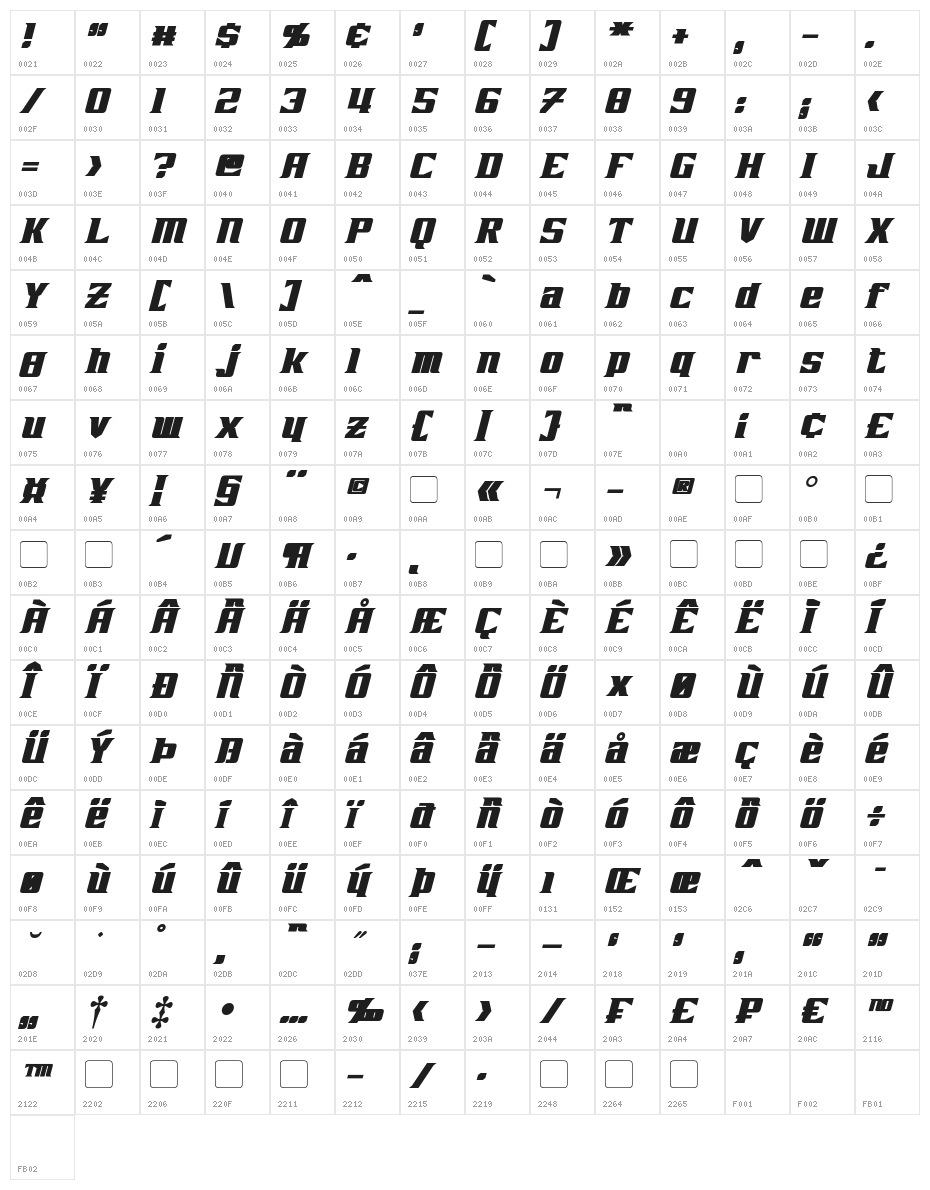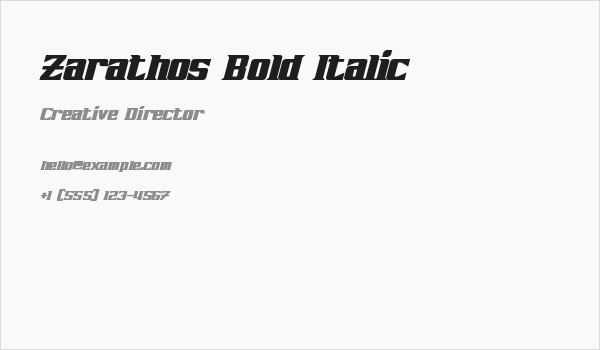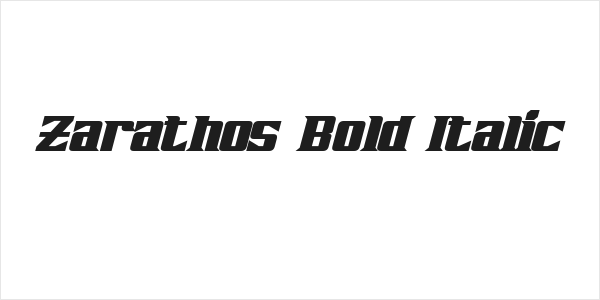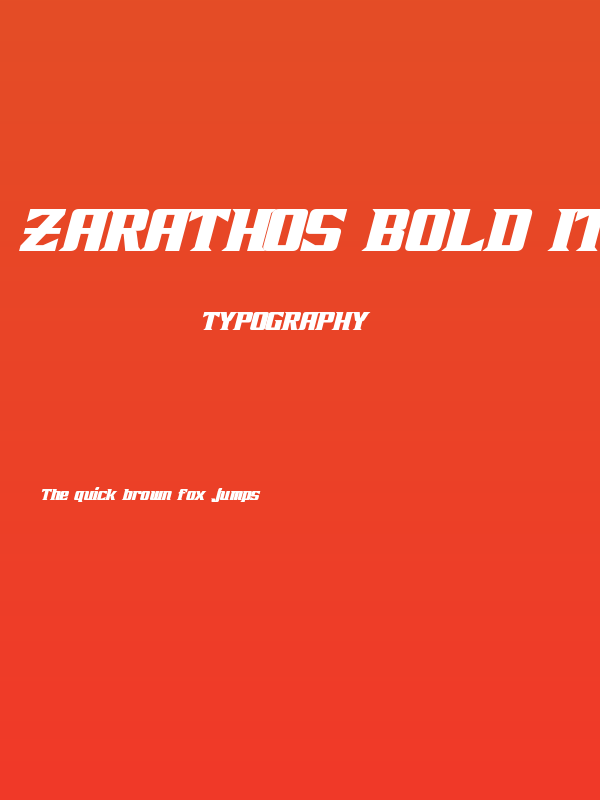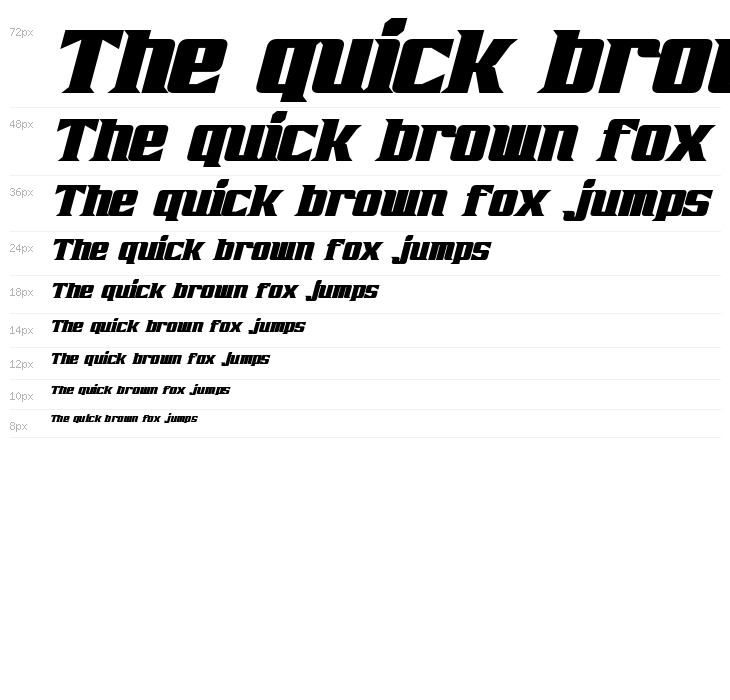
Zarathos Bold Italic Font
Zarathos Bold Italic Description
This bold italic font features a striking and dynamic design, characterized by sharp angles and a forward-leaning stance. The uppercase and lowercase letters maintain a consistent slant, giving the typeface a sense of motion and energy. The numerals and special characters follow the same stylistic cues, ensuring uniformity across all glyphs. The font's thick strokes and angular cuts create a bold presence, making it ideal for attention-grabbing headlines or impactful logos. Its unique style is both modern and edgy, suitable for projects that require a strong visual identity.
Proposed ProjectsIdeal for sports branding, dynamic posters, edgy logos, and modern advertising campaigns.